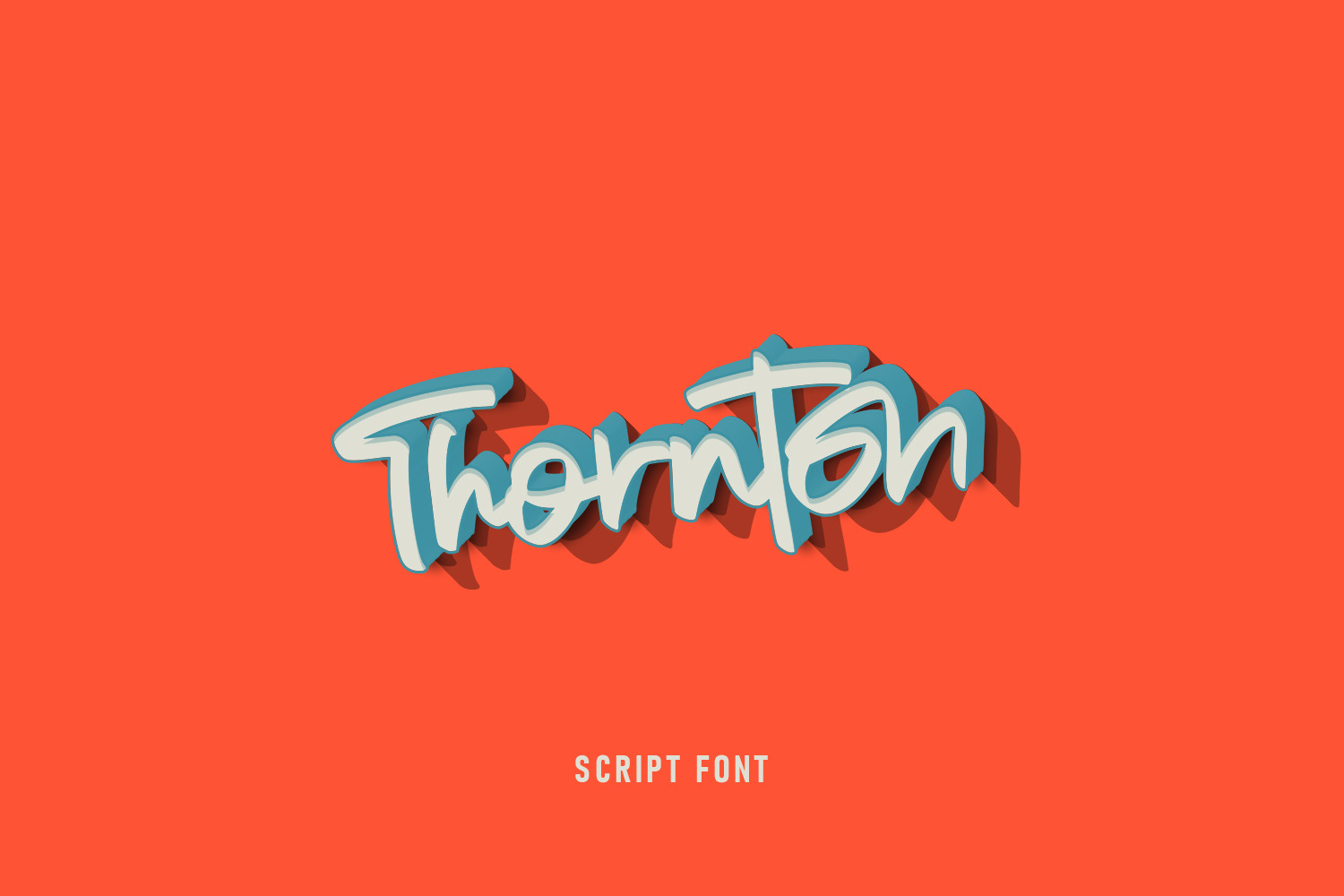
Thornton is a Bold font script that looks elegant when used for your design
Thornton font which is very elegant and modern for you to use and your design interests be it for logos, branding names, posters, podcasts and so on. This is perfect for you all.